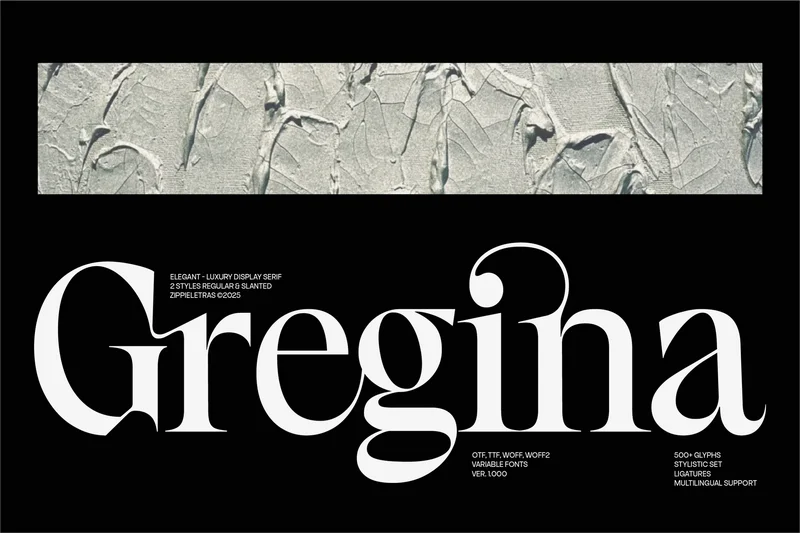
Gregina – Modern Elegant Brand Identity Serif
Gregina is a display serif designed for brands that demand elegance, prestige, and global appeal. With its high-contrast letterforms, graceful curves, and signature details, Gregina adds sophistication to everything from Brand Identity, logos to editorial headlines.
Its most distinctive features shine in the elegant shapes of the “a” and “g” — refined, stylish, and unmistakably luxurious. Activate Stylistic Set 01 (SS01) to transform characters like E, M, N, R, a, n, and u into stunning alternates, perfect for adding unique personality to your project. With smooth, well-crafted ligatures, Gregina ensures every word feels polished and intentional.
From Brand Identity to editorial design, Gregina delivers a modern luxury touch while retaining the timeless elegance of classic serif typography.
Personality “Gregina” – a sophisticated serif with luxury appeal and editorial elegance Feels like: high-end fashion campaigns, luxury hotels, fine art magazines, premium lifestyle brands, exclusive event invitations
From sleek print layouts to high-impact billboards, Gregina speaks the universal language of elegance — giving every project prestige, beauty, and unforgettable presence. From Zippieletras, with grace.